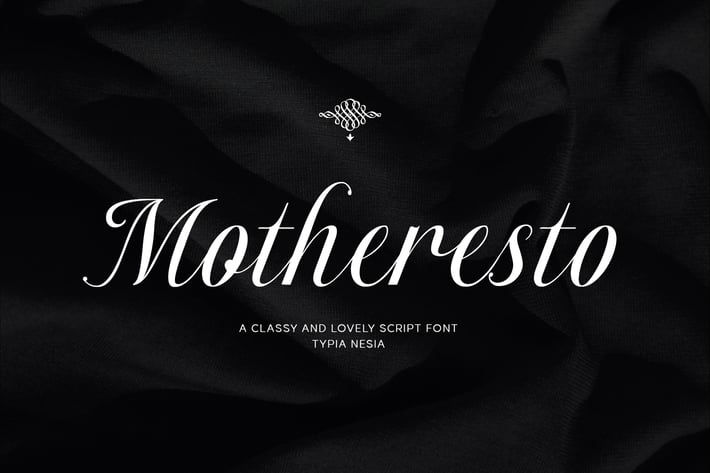
Motheresto - Classic Elegant Script Font
Motheresto - Classic Elegant Copperplate Calligraphy Script Font
The elegant flow and classy calligraphy style makes it perfect for royal branding, wedding design, blogging, social media, restaurant branding, invitation cards or simply use it in your next design project. It comes with some ligatures and alternates. So you can combine it to make a perfect beautiful calligraphy design.